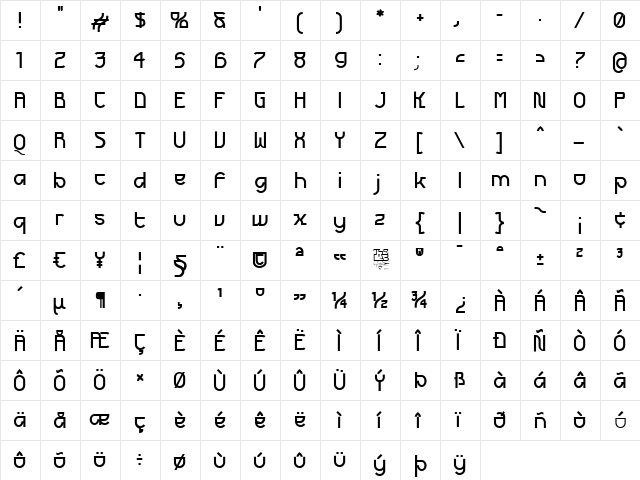
Futurex Bold
| Designer | Graham Meade & Apostrophe. |
Design Context for Futurex Typeface
Futurex channels digital-age aesthetics through its sharp, structured letterforms — ideal for brands that want to signal innovation. The heavy weight commands attention and anchors typographic hierarchies.